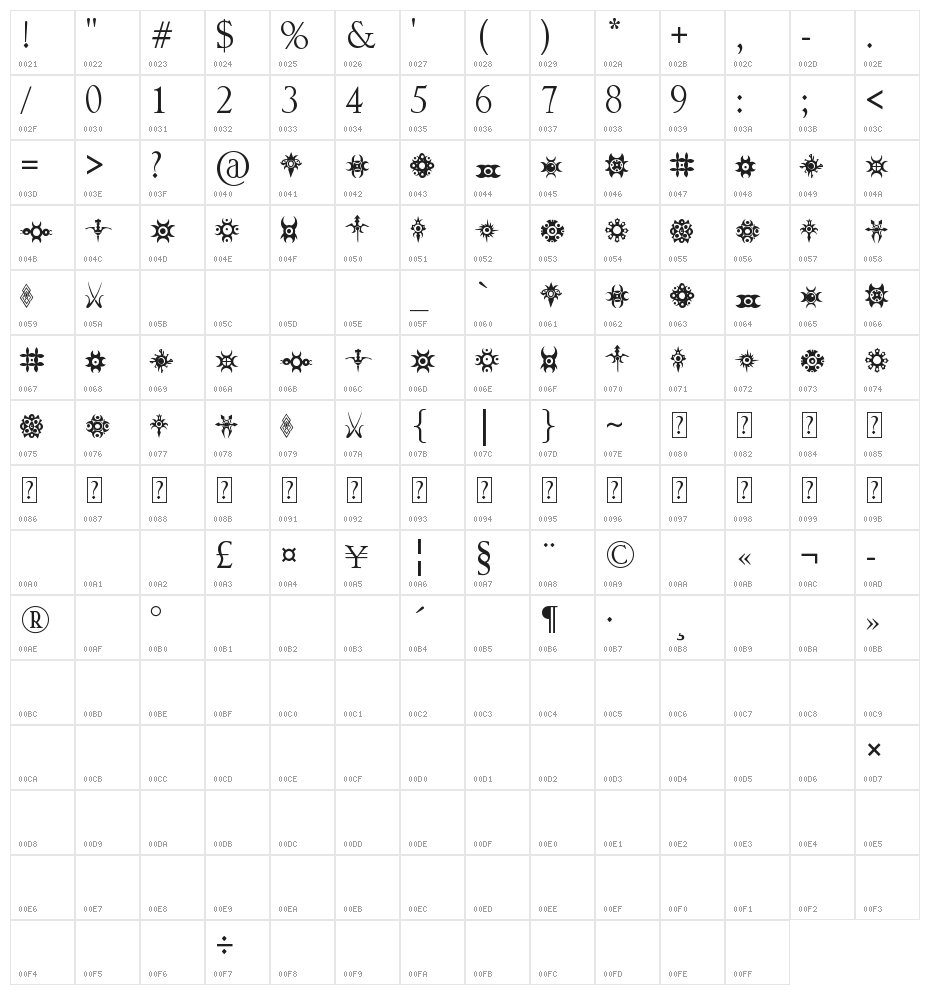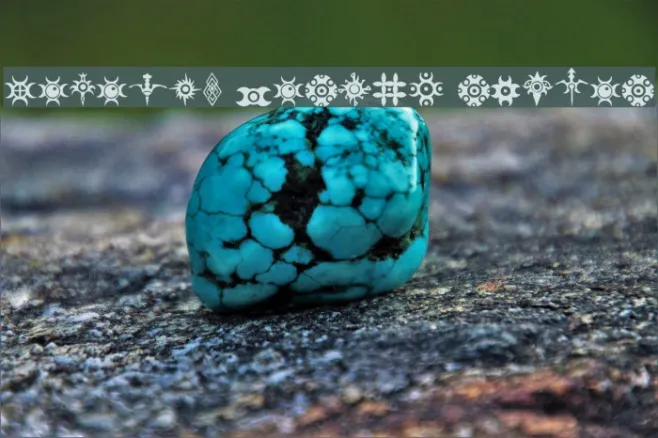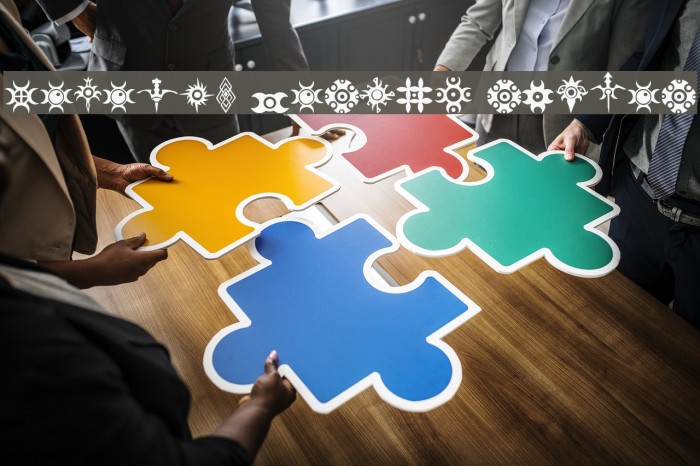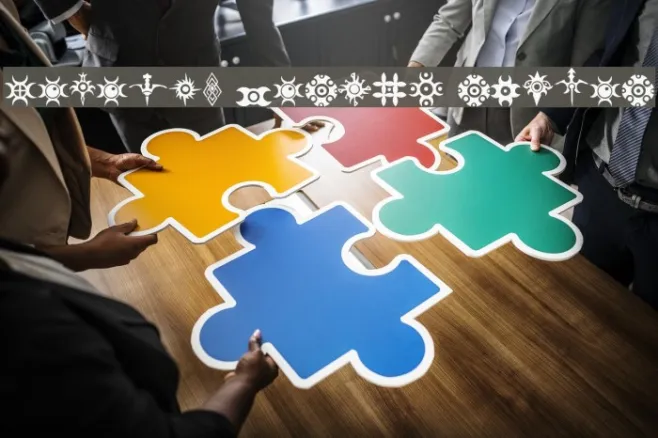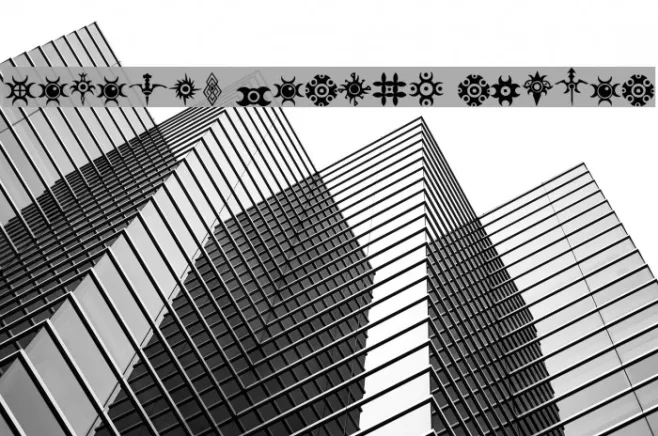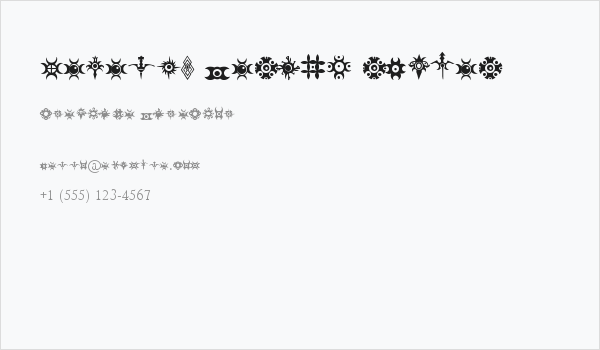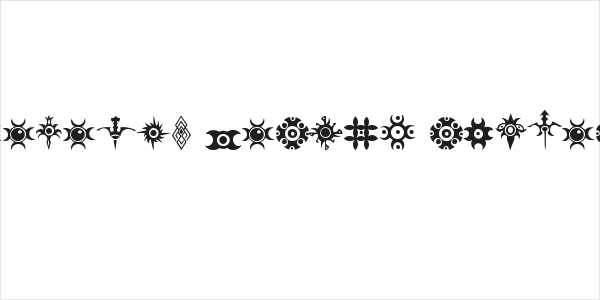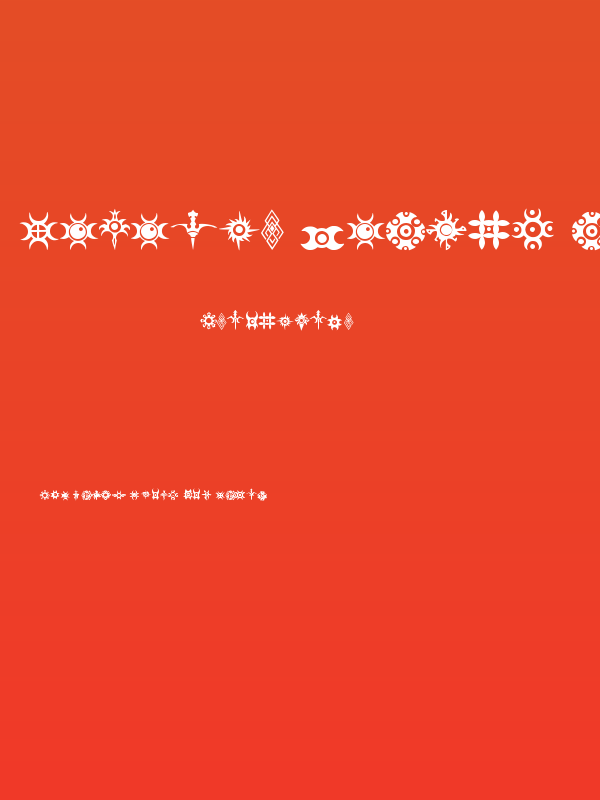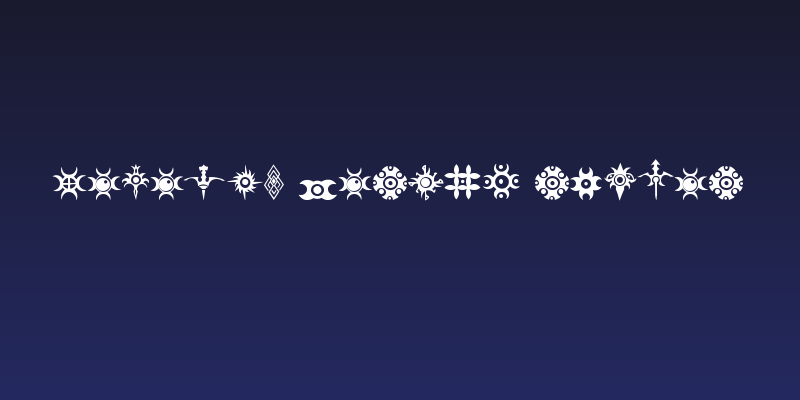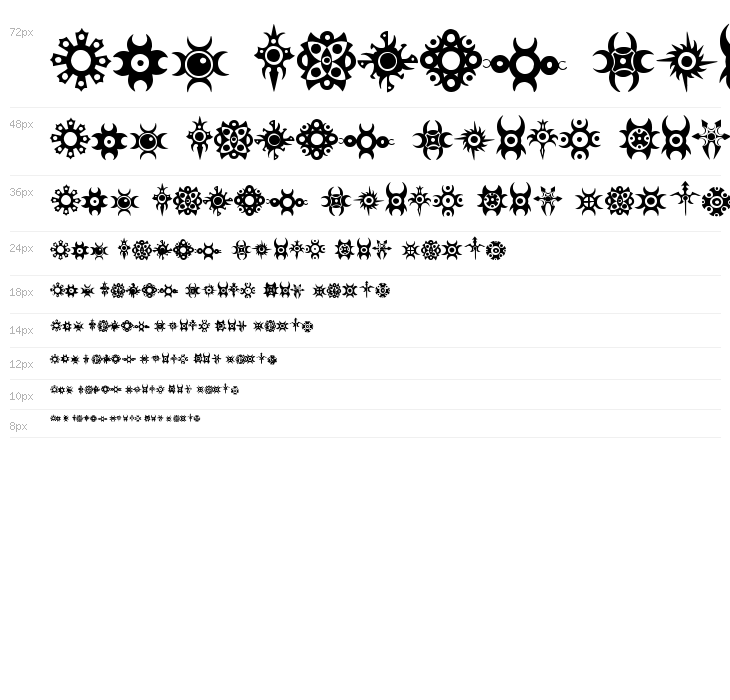
Jewelry Design Shapes Font
Jewelry Design Shapes Description
This font features a unique blend of decorative and classic elements, with intricate jewelry-like shapes forming the basis of its design. The characters are adorned with elaborate patterns, giving them an ornamental and sophisticated appearance. The numbers and special characters maintain a classic serif style, providing a stark contrast to the decorative elements above. This combination creates a visually striking and versatile font that can be used in various creative projects.
| Use Case | Logos, Headlines, Artistic Projects |
| Proposed Projects | Ideal for jewelry branding, luxury invitations, artistic posters, and decorative headings. |